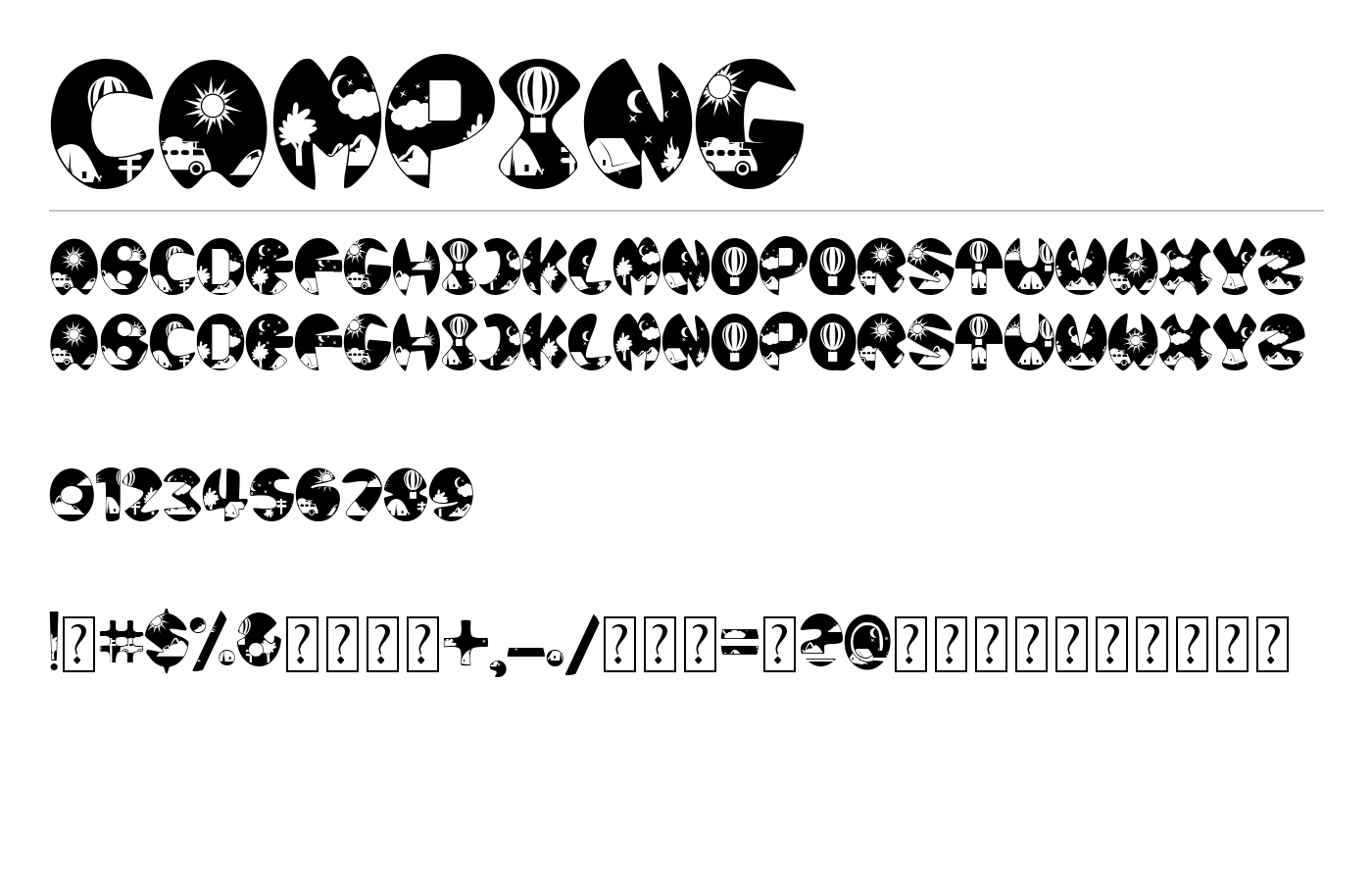
Camping Font is a playful, bold display typeface filled with charming outdoor and nature-themed illustrations inside each letterform. Its rounded, chunky shapes create a fun and friendly vibe, perfect for casual, adventurous, or family-oriented designs. This font works best for eye-catching titles, posters, and branding related to travel, camping, or nature activities where a lively and imaginative feel is desired.
Camping Font
About Camping Font